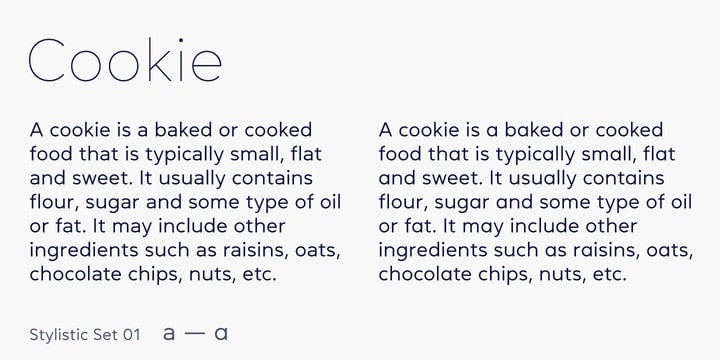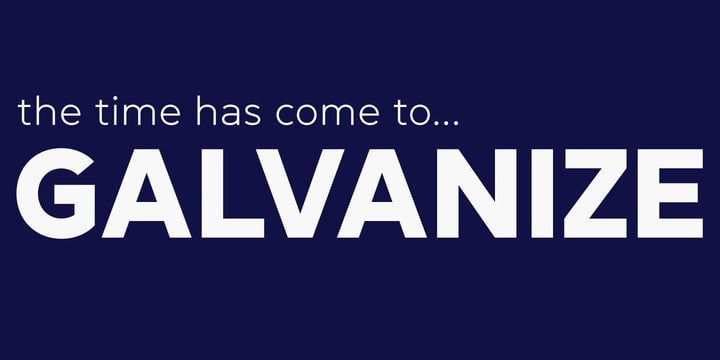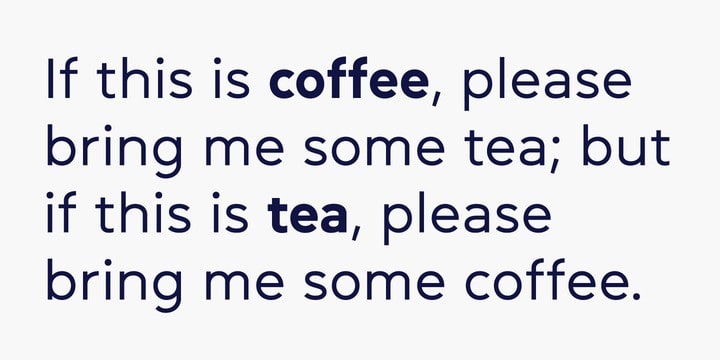
Daikon Sans Serif Font
Daikon Sans Serif Font is an geometric sans serif typeface with a touch of humanistic feel, bringing a different look with curved vertical strokes and high contrast on thicker weights. It’s a basic font from the designer Pepper Type. Daikon is a semi-closed geometric grotesque featuring rich language support including Cyrillic, various OpenType features and multiple sets of figures.
This family’s clean and legible feel makes it useable as both display and body type in any font size.